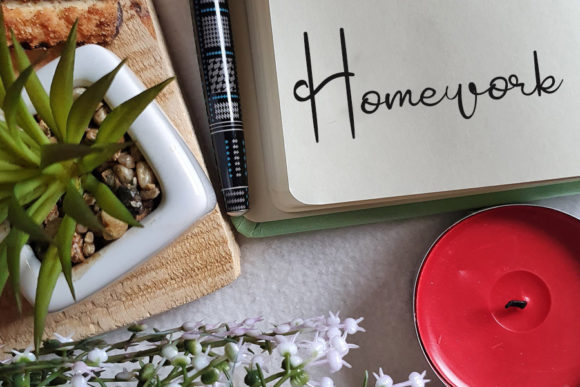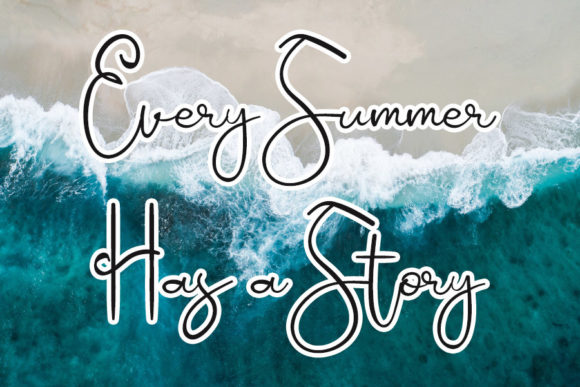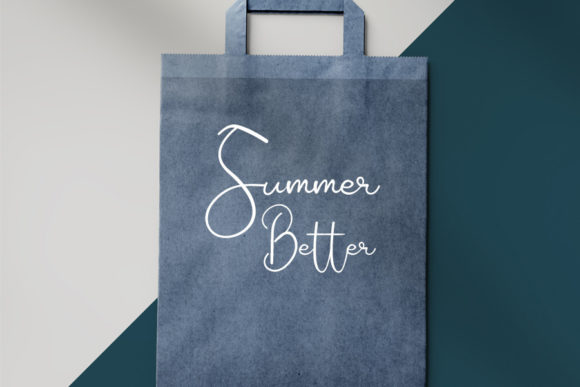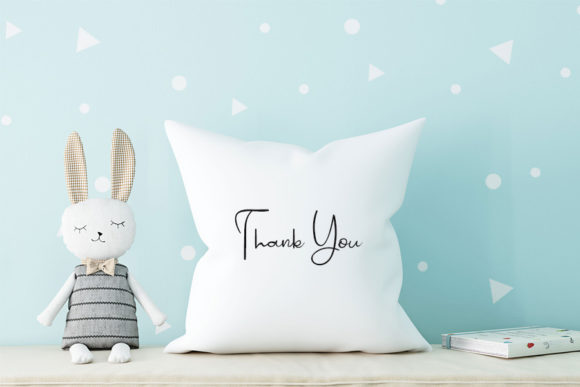
About Summertime Font
“Summertime” sounds like a beautiful and refined handwritten font, crafted with distinct and well-rounded letters to elevate creative ideas. Let’s explore its features and potential impact on design projects:
**Thin and Beautiful Design:**
Being described as a thin font suggests a delicate and elegant visual appearance. This characteristic, combined with its beauty, can contribute to a light and stylish feel in your designs.
**Distinct and Well-Rounded Letters:**
The mention of distinct and well-rounded letters indicates a careful design process. Each character likely possesses a unique and cohesive form, enhancing readability and overall visual harmony.
**Masterfully Designed:**
The term “masterfully designed” emphasizes the craftsmanship behind Summertime. This font is not just a collection of letters; it’s an intentional creation, showcasing a high level of skill and artistry in its design.
**True Favorite Potential:**
The claim that Summertime has the potential to become a true favorite suggests that its aesthetic qualities and usability could make it a go-to choice for designers. Fonts that resonate on this level often offer versatility and timeless appeal.
**Elevating Creative Ideas:**
The statement that Summertime has the potential to bring creative ideas to the highest level implies that it can enhance and uplift the overall impact of your design projects. Fonts with this quality often become an integral part of the creative process, adding a distinctive touch to the final result.
Incorporating Summertime into your designs could bring a touch of elegance and sophistication. Whether you’re working on branding, marketing materials, or any creative project, this font appears to be crafted to enhance the visual appeal of your ideas.
Experiment with Summertime in different contexts to fully explore its potential. Its thin and beautiful design, combined with distinct and well-rounded letters, suggests that it can adapt to a variety of design needs, allowing your creative ideas to shine with a touch of masterful craftsmanship.